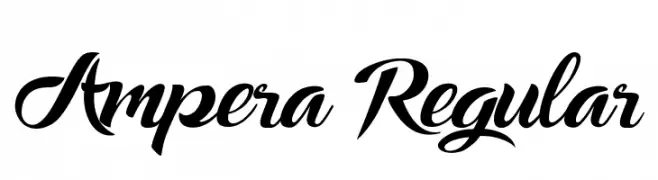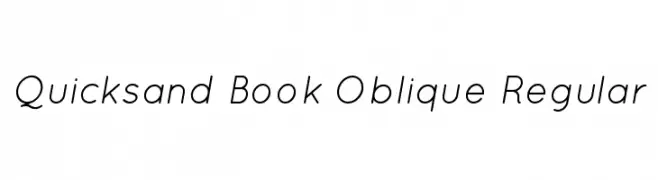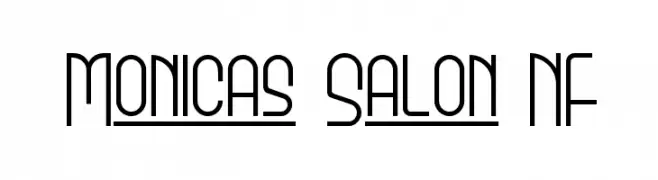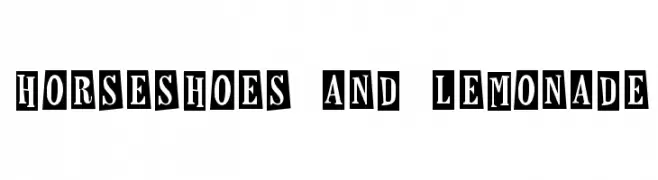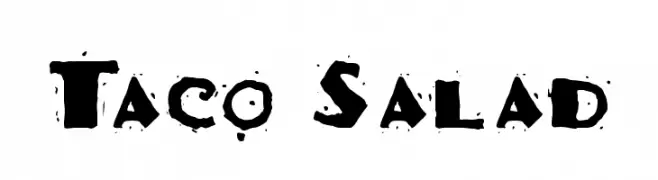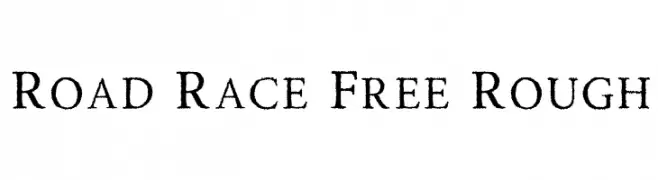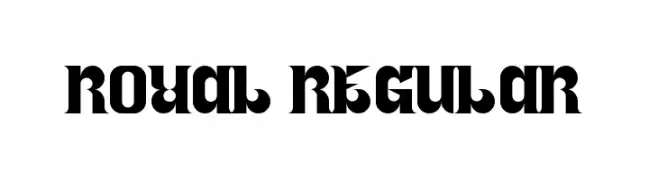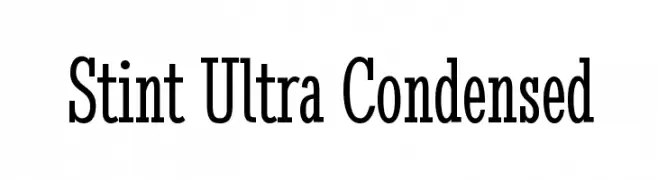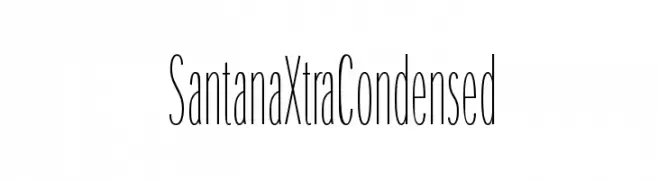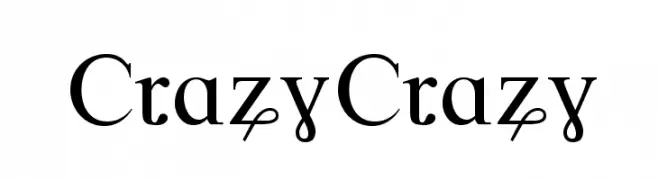
A gothic-style font with sharp serifs and high contrast, perfect for eerie designs.
A bold, playful font with circular cutouts and a modern, quirky style.
A tall, narrow font with a modern and sleek design.
A bold, flowing script font with elegant curves and dynamic style.
A decorative dot matrix font with a retro digital display style.
A modern, geometric font with a clean and condensed design.
A sophisticated script font with flowing, cursive strokes and elegant design.
A rugged, vintage-style font with a textured, worn appearance.
A bold, decorative font with intricate details and a strong presence.
A highly condensed, clean, and organized font ideal for space-saving designs.
A modern, geometric sans-serif font with clean lines and balanced proportions.
A sleek, ultra-condensed font with tall, narrow letterforms for a modern aesthetic.
A sleek, modern font with geometric, monospaced characteristics and rounded edges.
An elegant serif font with a blend of classic and modern elements, featuring unique curves and flourishes.
A bold, geometric font with a modern, industrial aesthetic and semi-condensed width.
A bold, modern sans-serif font with a clean and impactful style.
A diverse collection of decorative wing designs, ranging from intricate to bold styles.
A bold, geometric font with a modern and futuristic style.
A bold, ornate blackletter font with intricate detailing and sharp serifs.
A bold, graffiti-inspired font with jagged, angular letterforms.
A dynamic, cursive script font with a handwritten feel.